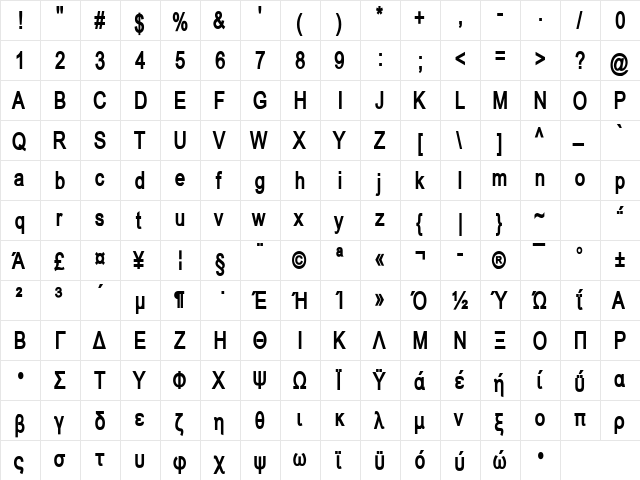
HellasArial Condensed Bold
Design Context for HellasArial Condensed Typeface
HellasArial Condensed takes a measured approach to typography — its balanced proportions and neutral character make it a reliable workhorse for both digital and print work. The heavy weight commands attention and anchors typographic hierarchies. Its narrow stance lets it pack a punch even in space-constrained designs.